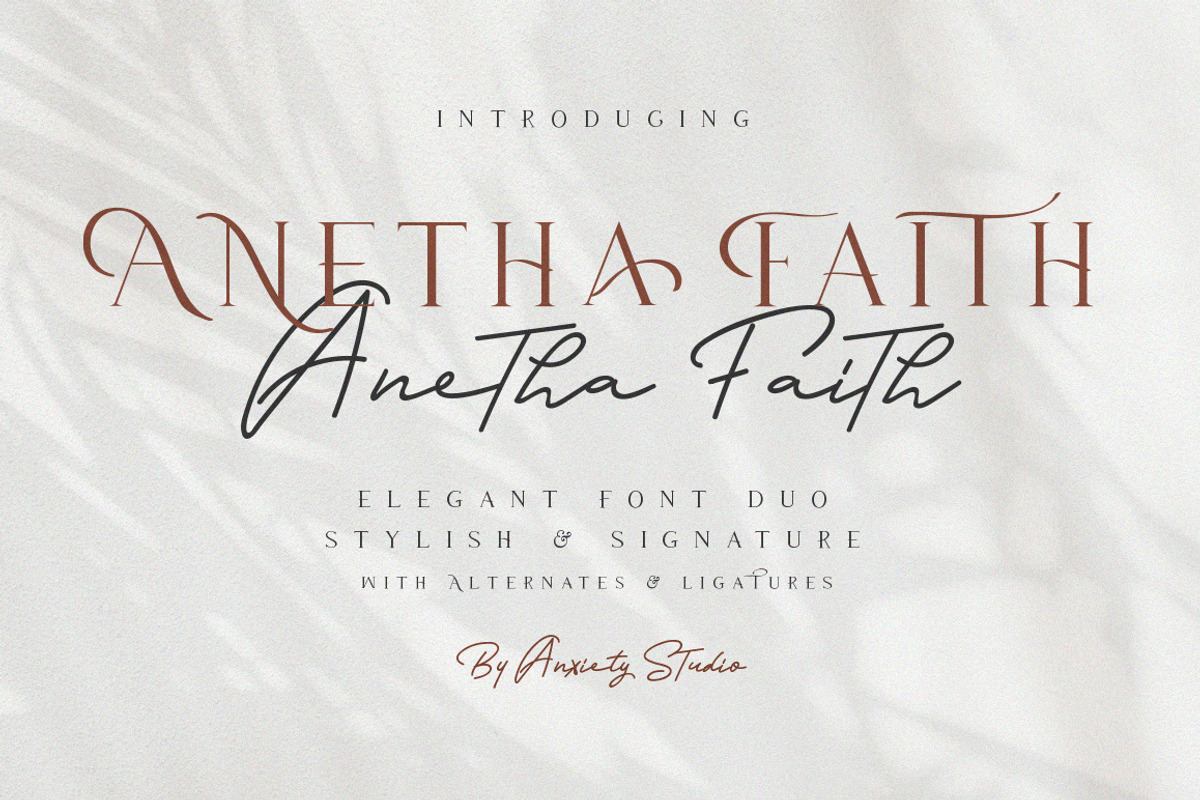
Anetha Faith Signature Font Duo Free Download
Please note, you must purchase this font for commercial use. However, you can easily download Anetha Faith Signature Font Duo Free Download for personal use and testing purposes. Anetha Faith Signature Font Duo is an elegant and stylish font bundle that includes a beautiful signature script font and a complementary serif font. Perfect for high-end branding, wedding invitations, personal projects, and more, this font duo creates a harmonious blend of modern calligraphy and classic typography. Anetha Faith Signature Font Duo Free Download allows you to effortlessly combine the graceful flow of the script font with the timeless charm of the serif, making it ideal for sophisticated designs. Whether you're creating a luxurious logo, a custom invitation, or a refined branding project, this font duo will elevate your work. Download Anetha Faith Signature Font Duo Free Download today and explore its potential before opting for a commercial license.